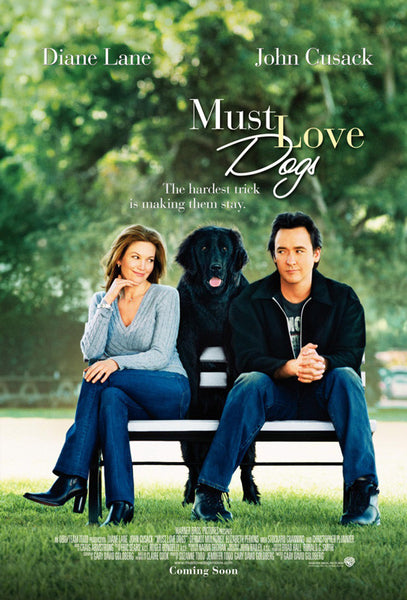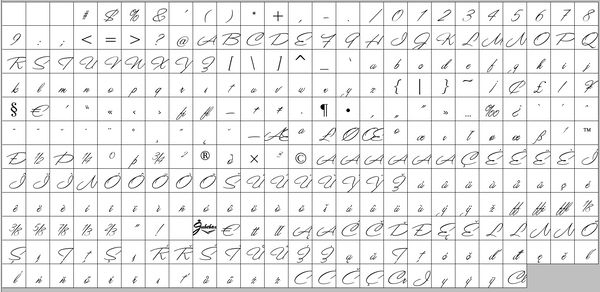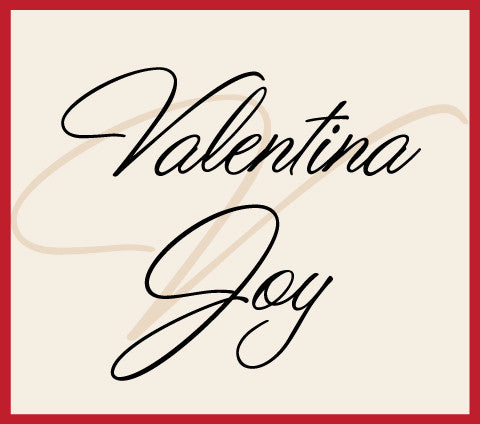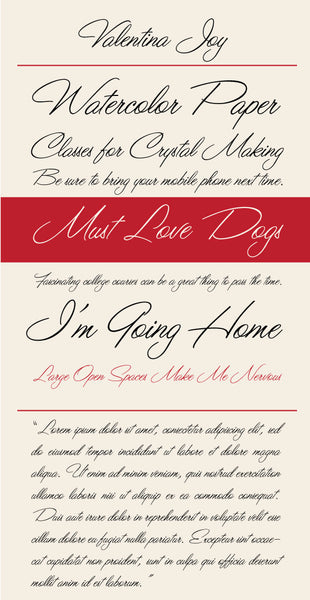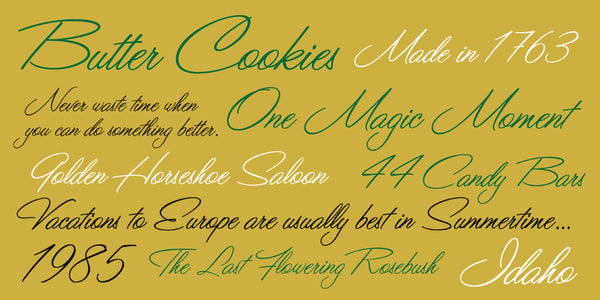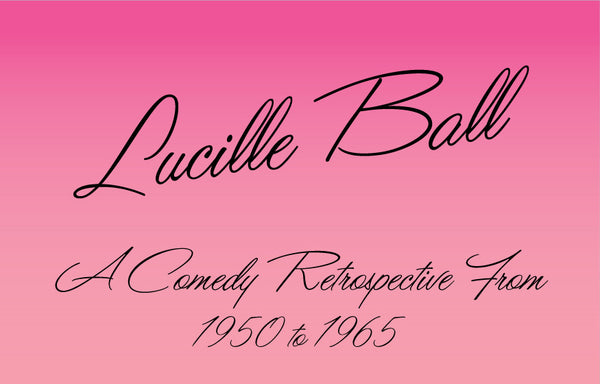
Valentina Joy
Valentina Joy is another one of the most popular Jukebox fonts in the collection. It is a dynamic and flowing script font that is a "semi" digital revival. The design is partially based on an older photo-typositing font that I have seen used*, but I never could find the name or a full type specimen of the mysterious original. Starting with the letters I had, (about 1/2 the alphabet) I filled in the rest with characters of my own design to match. It has ultimately become its own design and yet retains the feeling of the original. The relatively small x-height gives it a unique look.
*The newest version of Valentina Joy has recently been updated to include a few extra characters as an additional source sample of the original font was recently spotted. The old glyphs have been kept as alternates.
Notable Use: Valentina Joy was used on the posters and DVD covers for the movie "Must Love Dogs" starring Diane Lane and John Cusack.